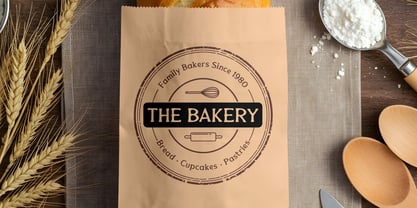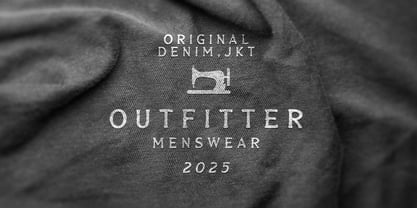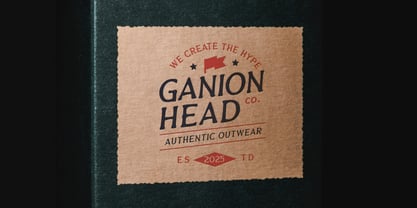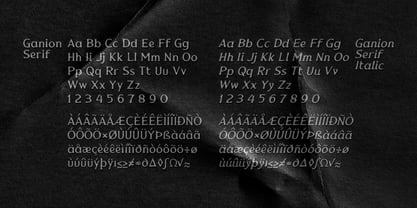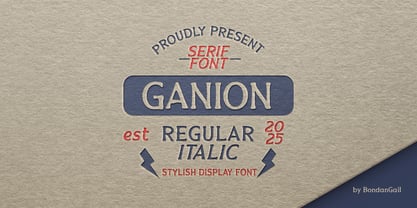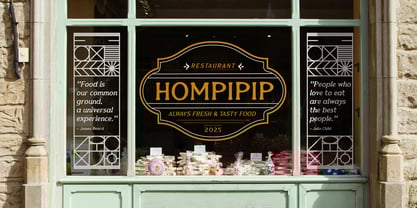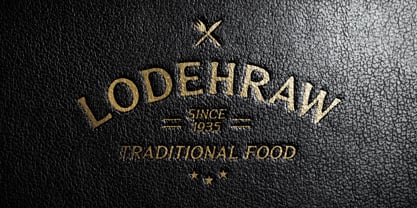
Ganion
La familia tipográfica Ganion fue diseñada por Wahyu Eka Prasetya, Bondan Gail Saputro y publicada por BondanGail. Ganion contiene 2 estilos y opciones de paquete familiar.
Proudly Present Ganion - Classic Contemporary Type.
Ganion features a classic serif design, characterized by thick and bold letters that convey strength and reliability. Its unique shapes add an attractive flair. The slight distressed texture suggests a vintage feel, enhancing its character and warmth.
Ganion is ideal for logo, branding or signage where trust and tradition are essential. It works well for businesses like outwear, restaurant, bakery and artisanal shops.
Ganion includes :
• 2 Style Typefaces (Serif and Serif Italic)
• Uppercase, Lowercase, Numeral, Symbol and Punctuation
• Multilingual